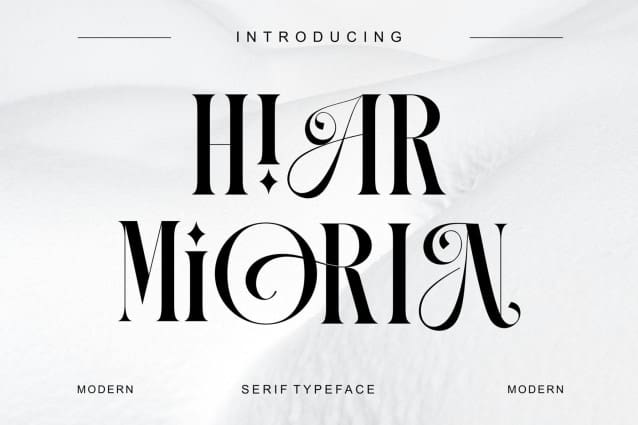
Hiar Miorin Font
Hiar Miorin Font is an elegant and chic serif font. This font is both modern and nostalgic and is perfect for logos, magazines and social media. Already matched and ready to use together for your next design! For those of you who need a touch of elegance, class, chic and modernity for your designs, this font was created for you!
Hiar Miorin Font was built with OpenType features and includes ligatures, numbers, punctuation marks and also supports other languages.